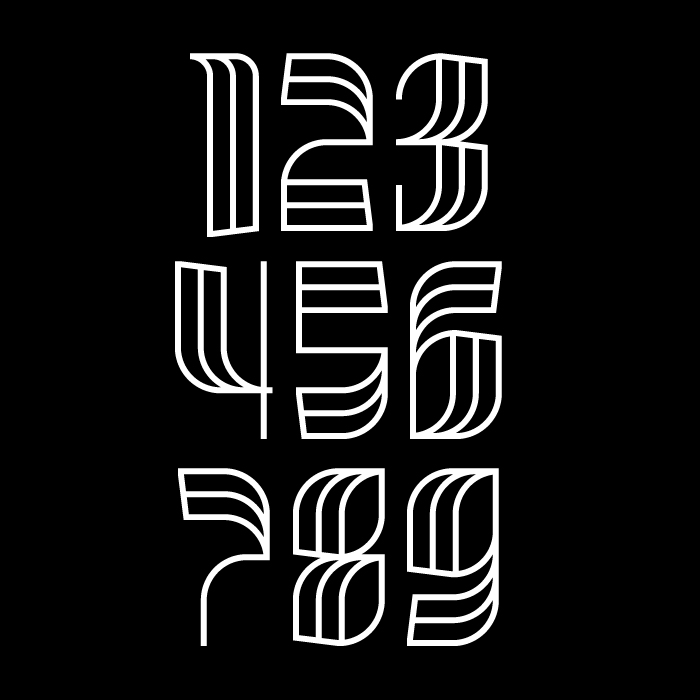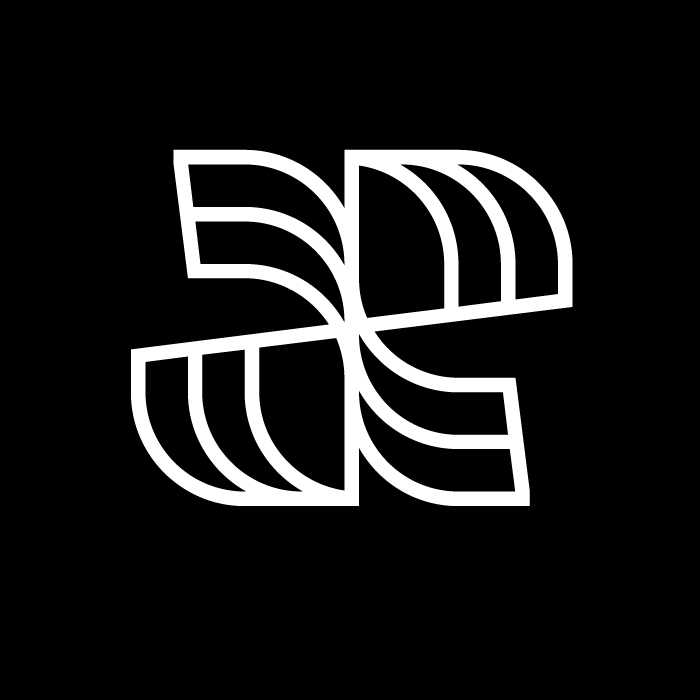
Another excellently blended design, the style of the "B" almost seems reminiscent of a butterfly's wing
Another B-b-beauty pretty fooont! I've read that "briste" means "broken" in irish. It's right?
Thanks @Elmoyenique! Yes, I had to look it up as well, as my Irish is extremely poor... I Iiked the sound of it and felt it suited the 'fractured' style of the font.